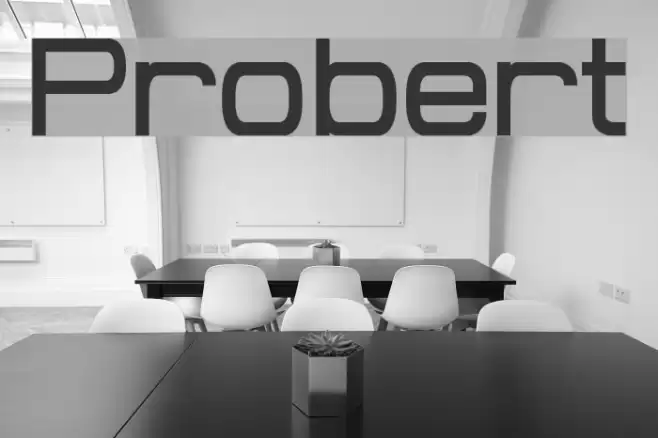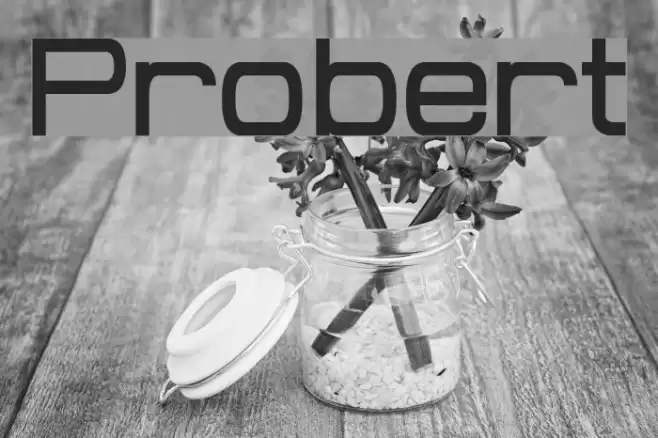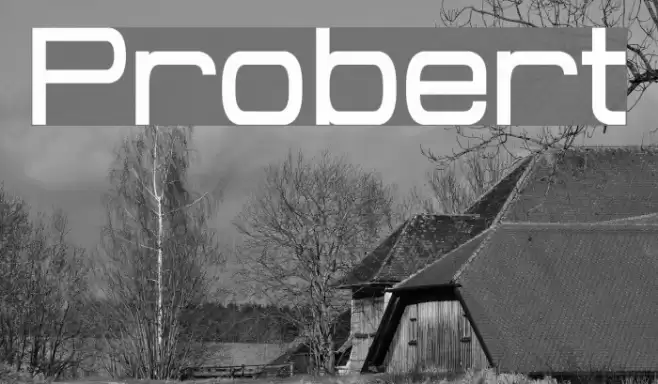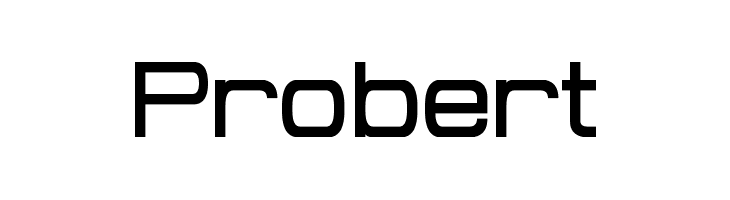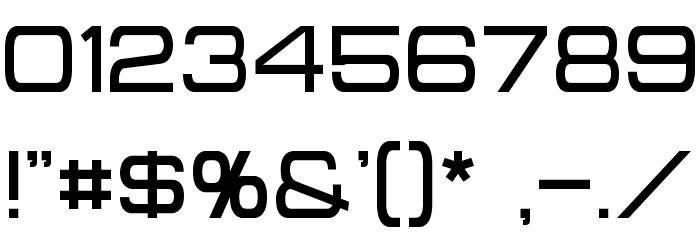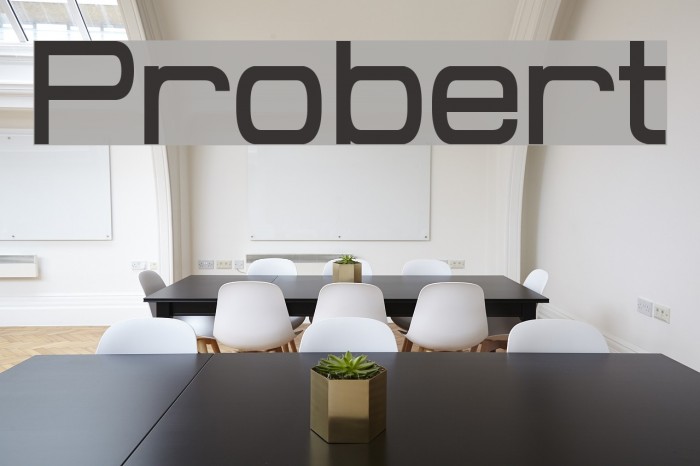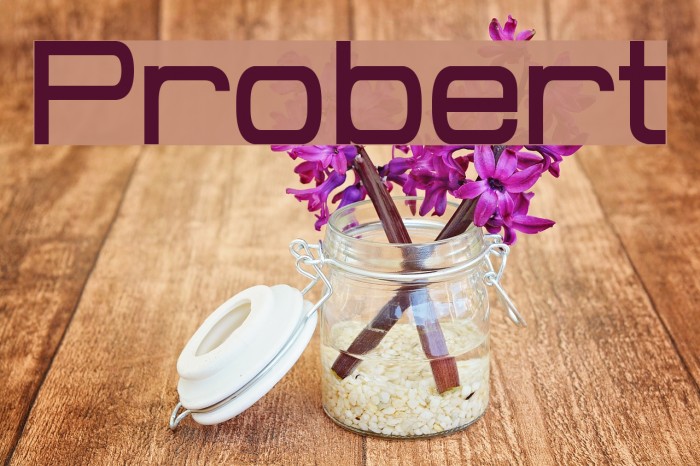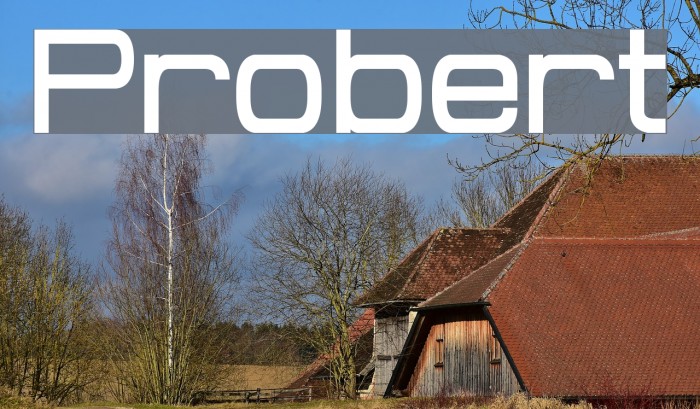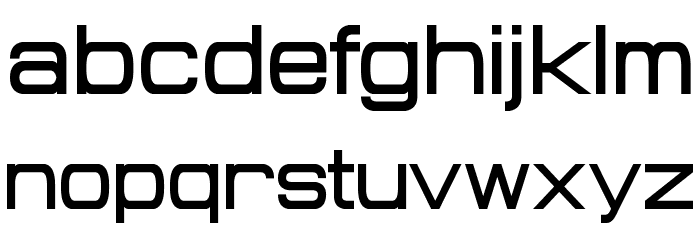
Probert Font
Probert Description
This font features a modern, geometric sans-serif design with clean lines and a uniform stroke width. The characters are well-proportioned, with a slightly condensed appearance that enhances readability while maintaining a sleek and contemporary look. The uppercase letters are bold and assertive, while the lowercase letters offer a softer, more approachable feel. The numerals are clear and distinct, making them suitable for various applications. Special characters are included, providing versatility for different design needs. Overall, this font exudes a sense of modernity and professionalism, making it ideal for a wide range of projects.
A modern, geometric sans-serif font with clean lines and uniform stroke width from Uncategorized fonts.
- Proposed Projects: Ideal for branding, digital interfaces, advertising, and editorial design.
- Use Case: Headlines, Logos, Digital Interfaces